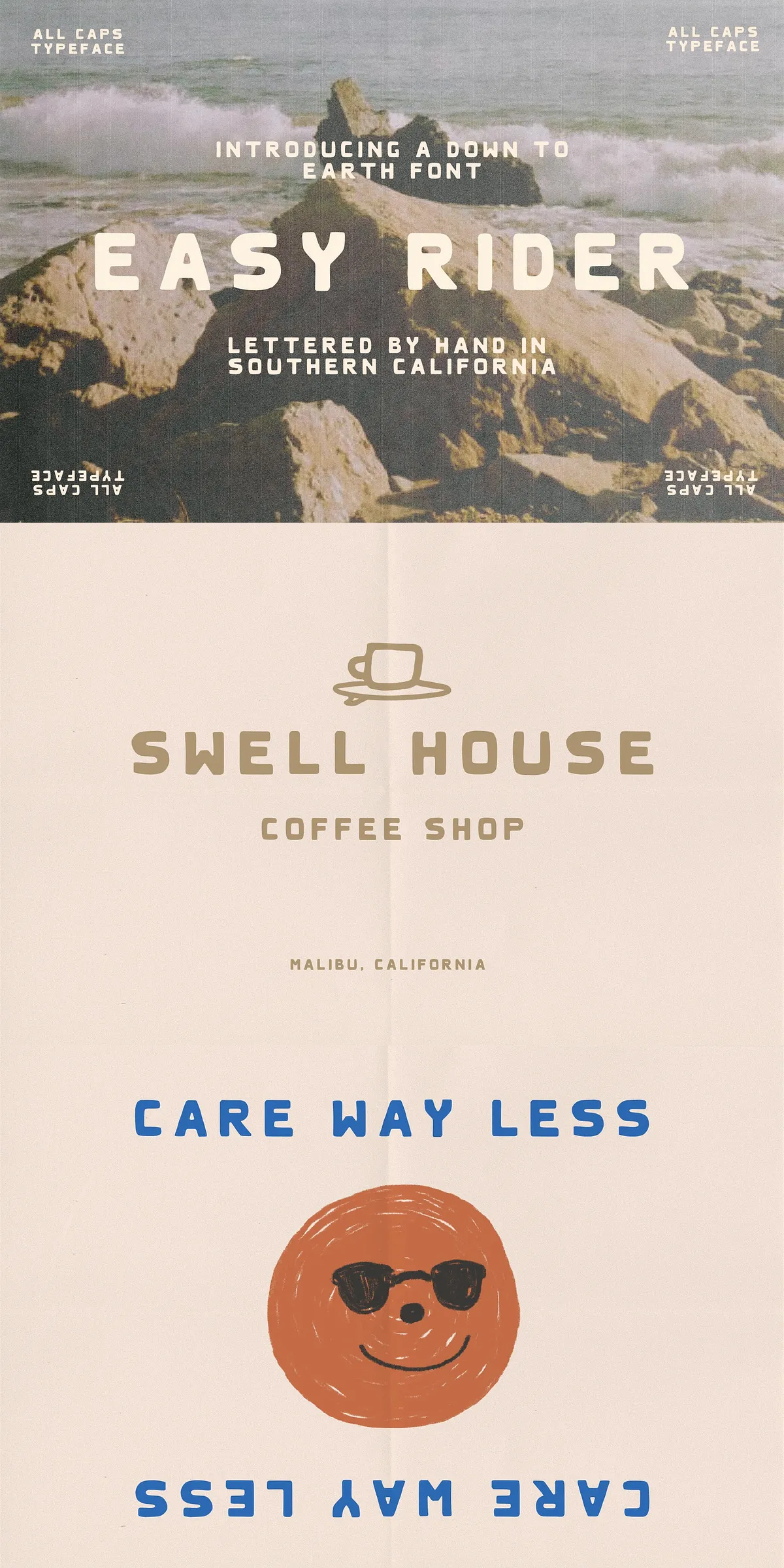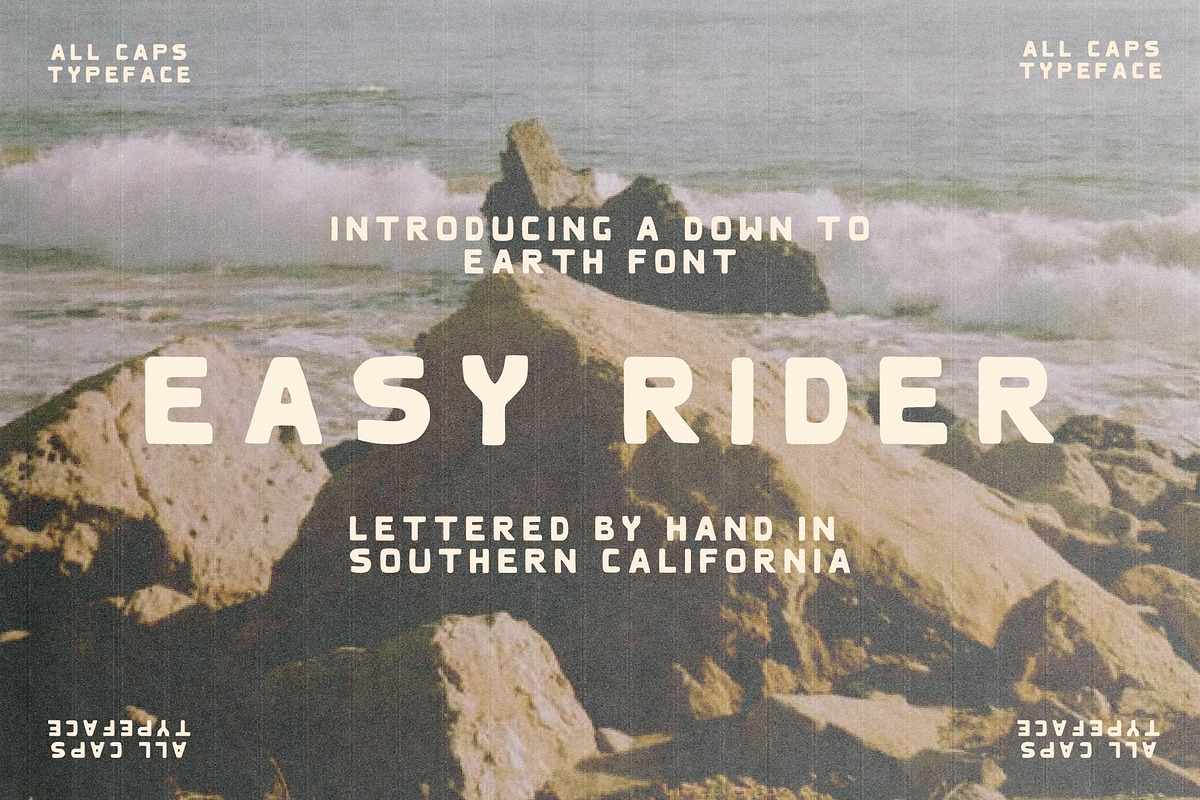
Imagine the whisper of sea breeze through a cracked windshield. The crunch of sand under worn sneakers. The quiet hum of a long road stretching into the horizon. Easy Rider doesn’t just evoke those moments — it *channels* them. This isn’t just a font. It’s a mood. A feeling. A typeface that carries the salt-kissed air of Ventura, the warmth of sun-warmed rocks, and the calm of a journey well-traveled.
Minimalist Design with Maximum Soul
At its heart, Easy Rider is a masterclass in restrained elegance. Its semi-blocky structure delivers bold presence without clutter, offering a clean, open canvas that invites your message to breathe. Each letterform is carefully sculpted — not to dominate, but to *belong*. The subtle weight distribution creates a quiet strength. The rounded terminals whisper *calm*. The slightly uneven baselines echo the imperfections of nature — and that’s exactly the point.
Built for Authentic Projects
Whether you’re designing a boutique coffee shop’s logo, crafting stationery for a beachside retreat, or developing a brand identity for a sustainable outdoor gear company, Easy Rider fits like a handmade leather belt. It’s designed for projects that value integrity over flash, atmosphere over noise. It doesn’t shout — it *invites*. It doesn’t compete — it *complements*.
- All-Caps Perfection: Every character is optimized in uppercase, delivering a unified, confident look ideal for headlines, logos, and impactful statements.
- Core Character Set: Includes standard numbers (0–9), basic punctuation, and essential mathematical symbols — everything you need for practical, real-world use.
- Timeless Aesthetic: Free from fleeting trends, Easy Rider’s design is rooted in enduring minimalism, ensuring your projects stay relevant for years.